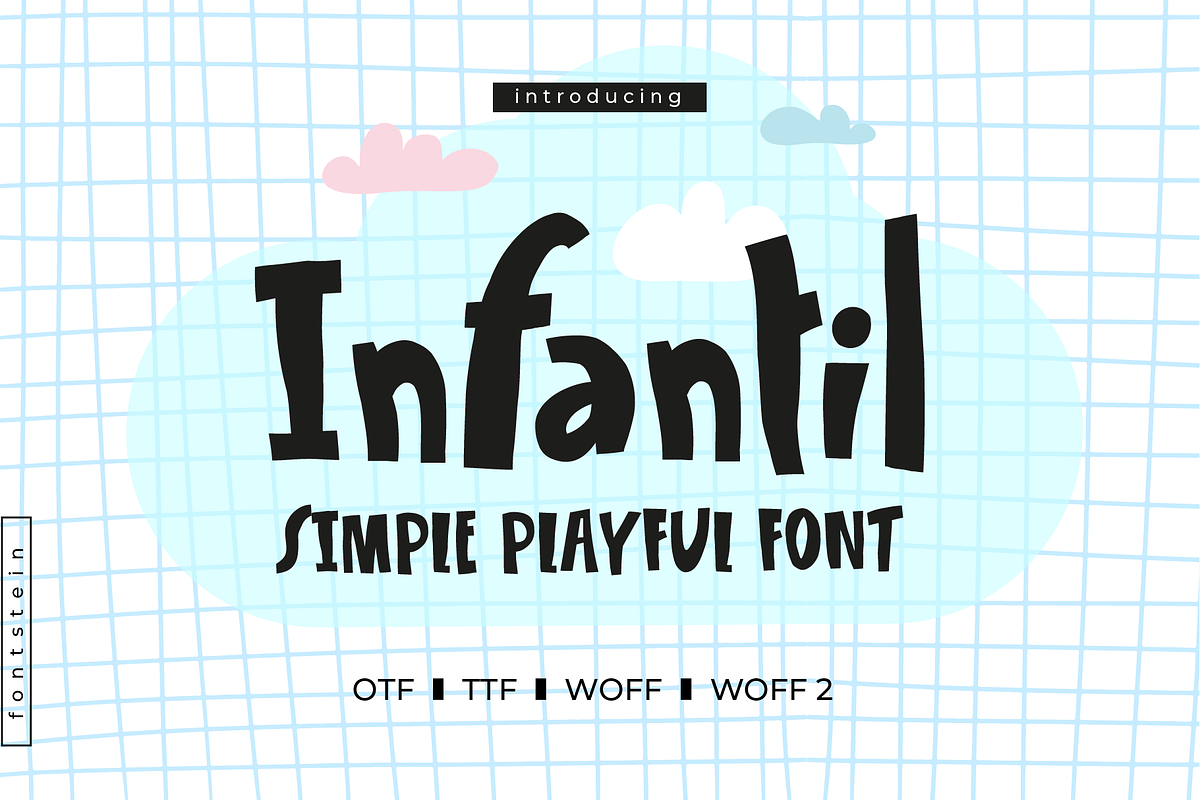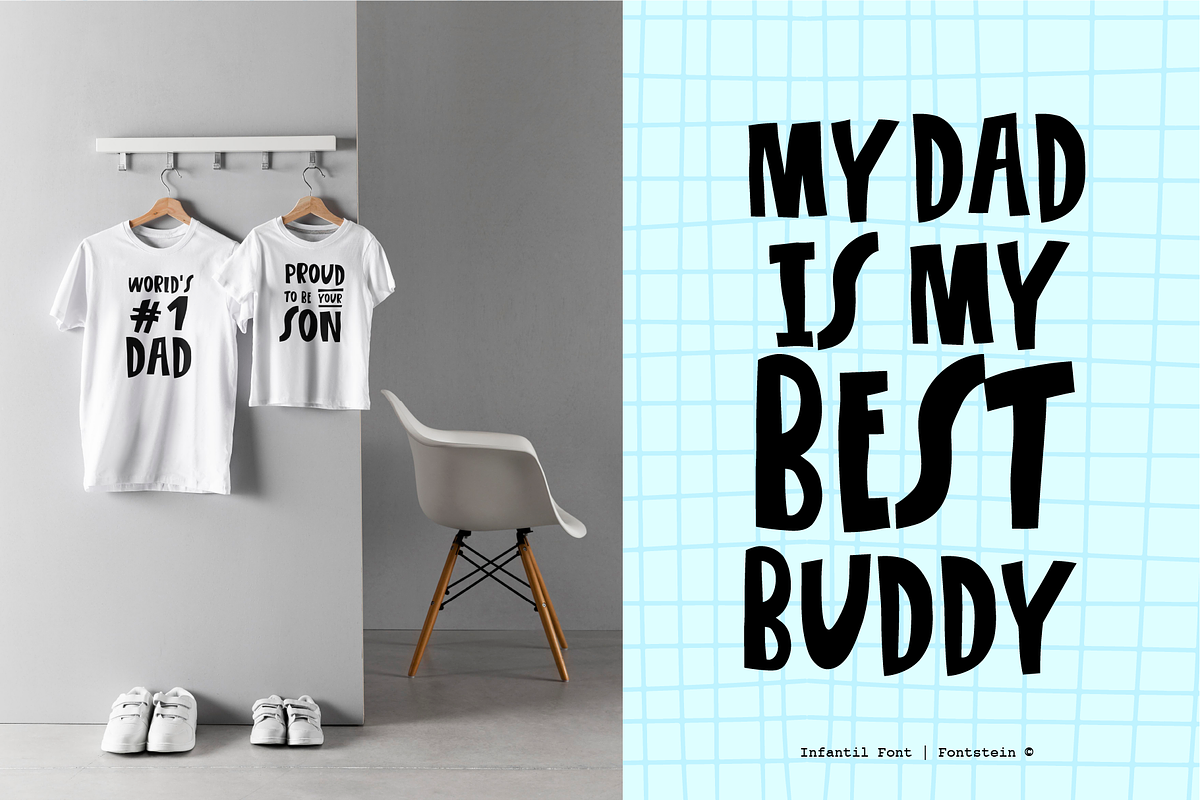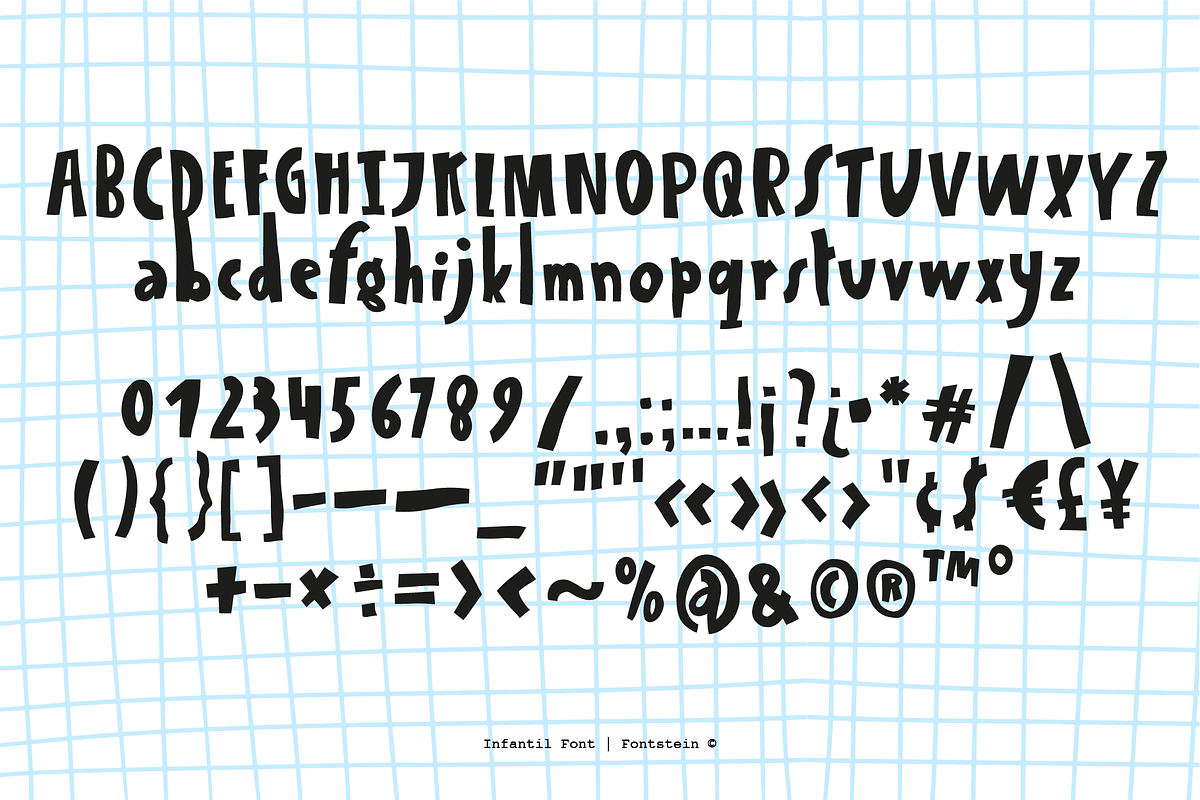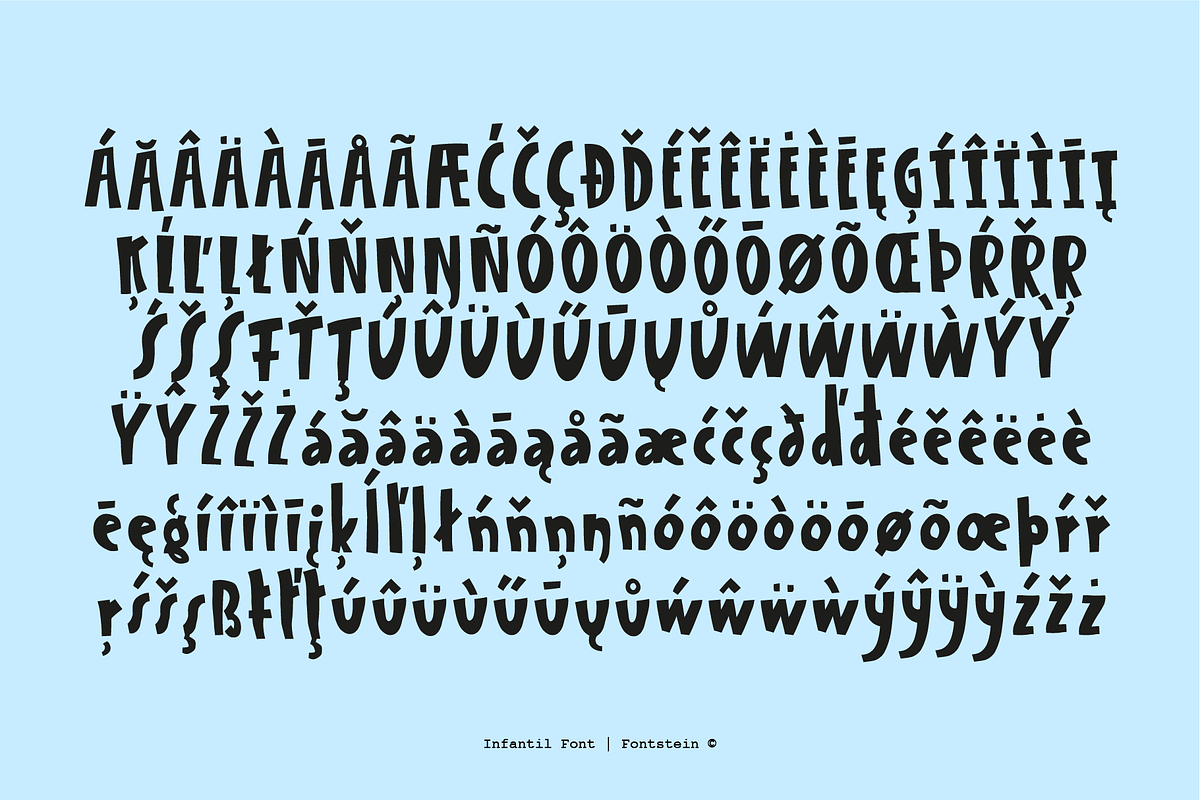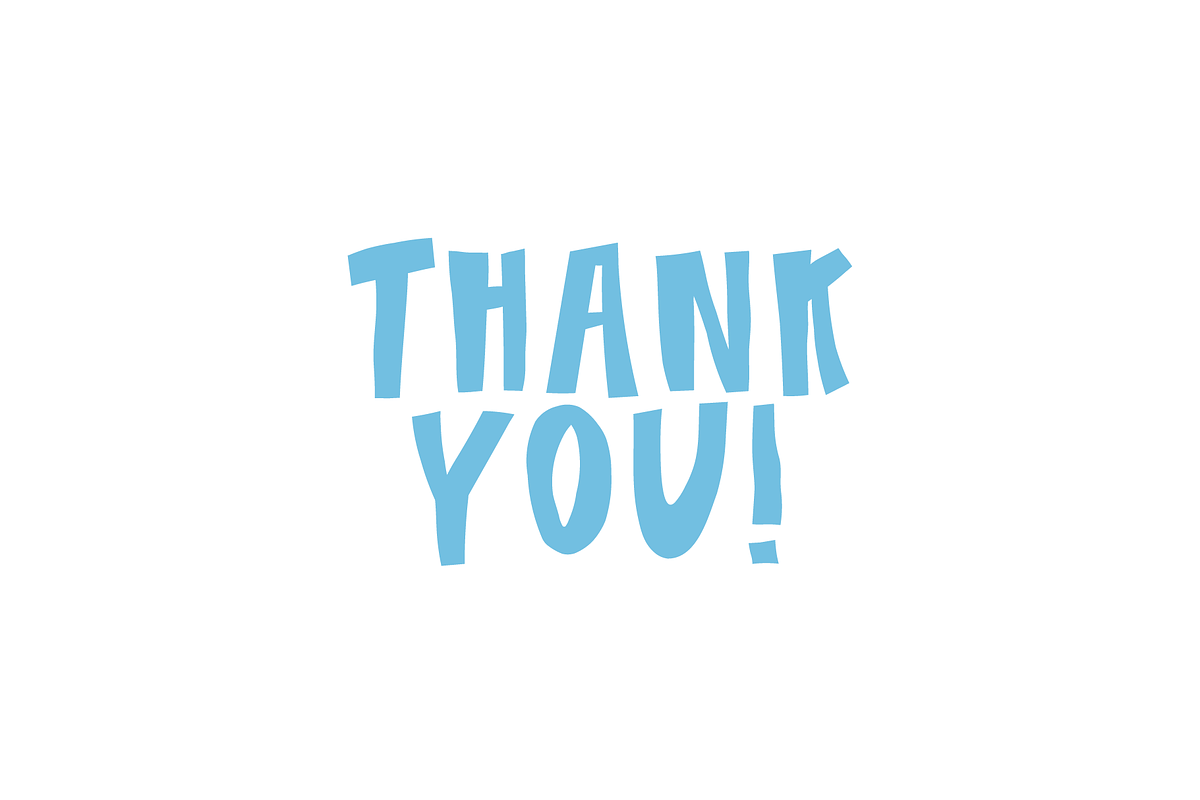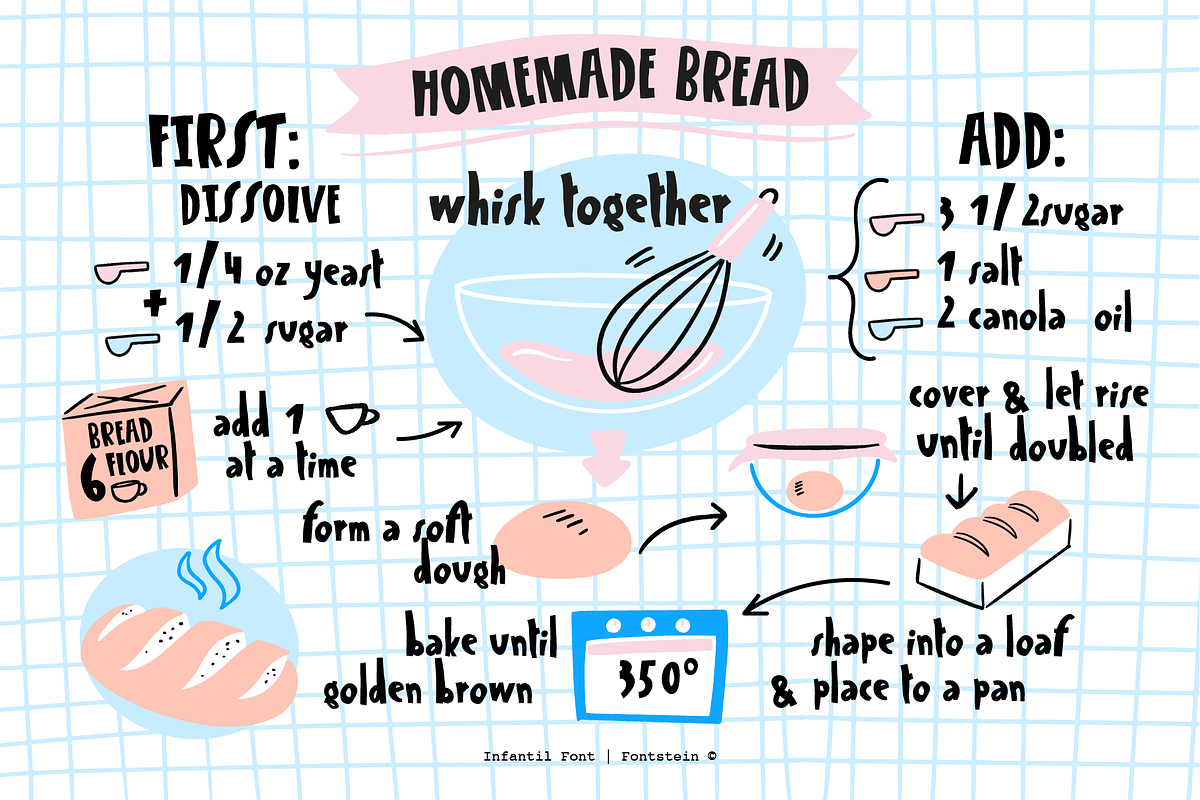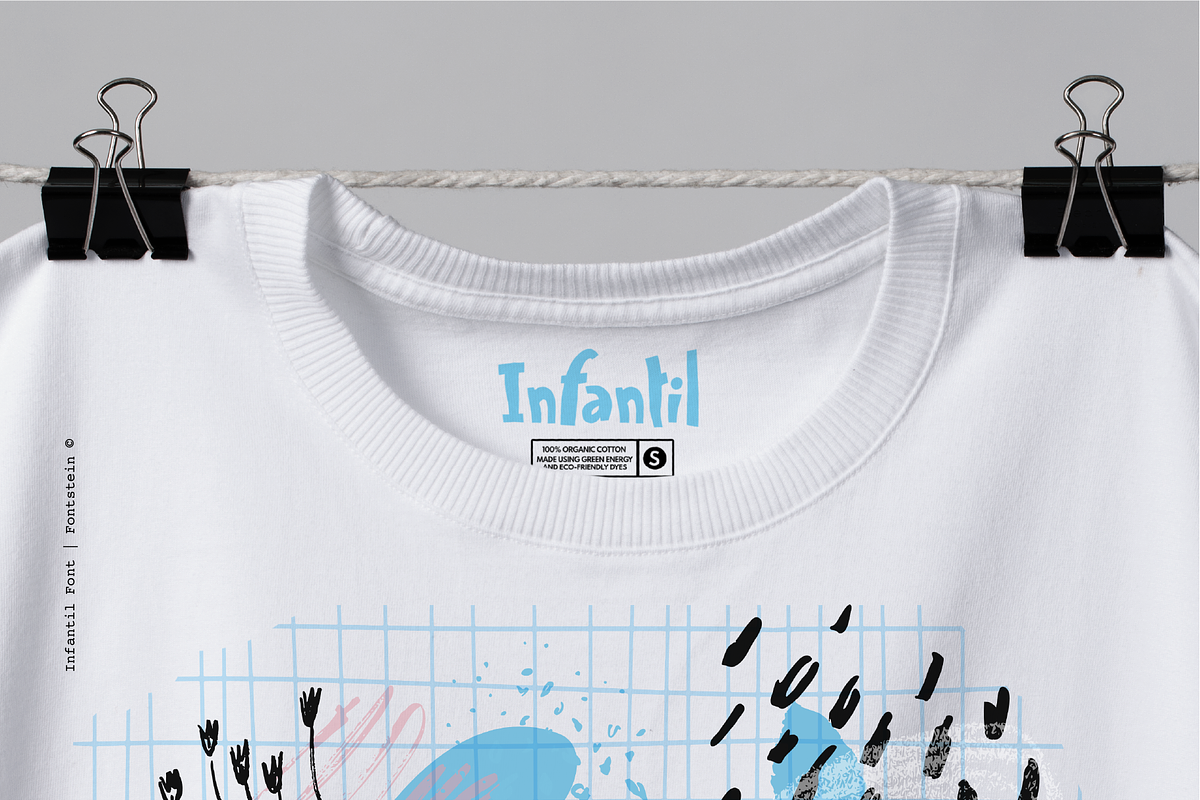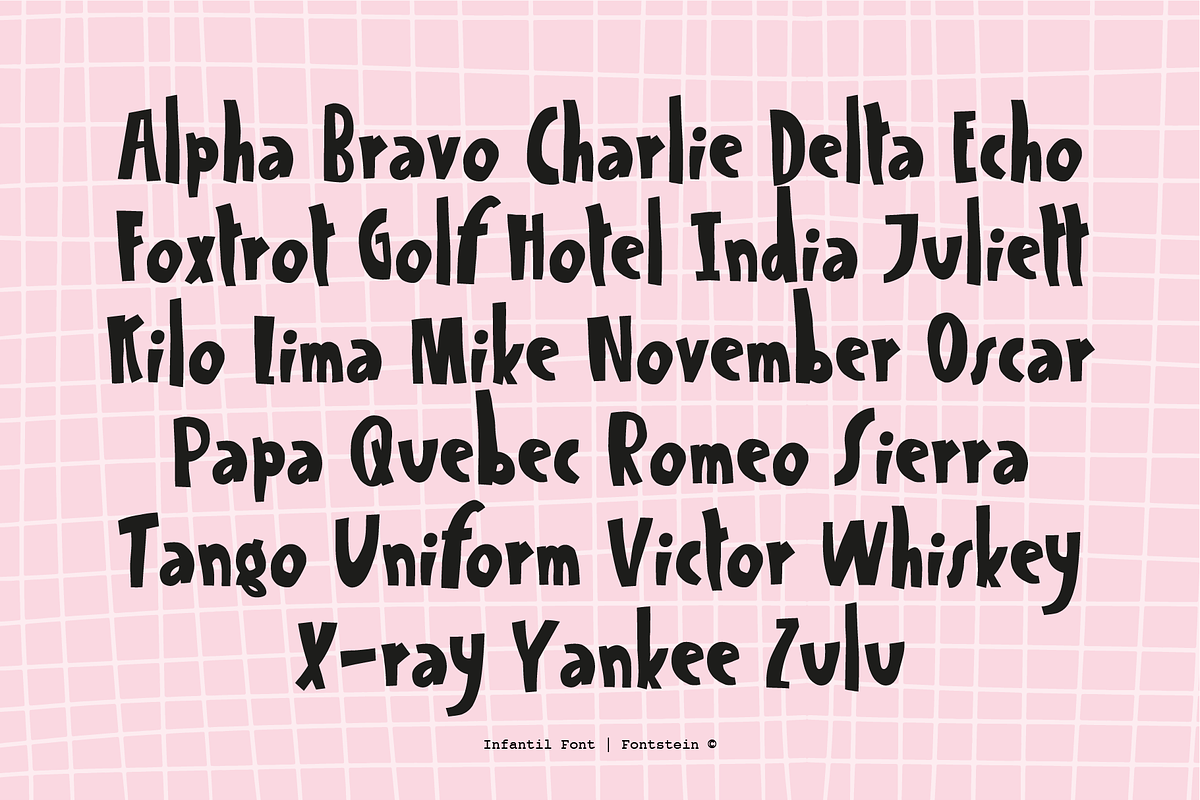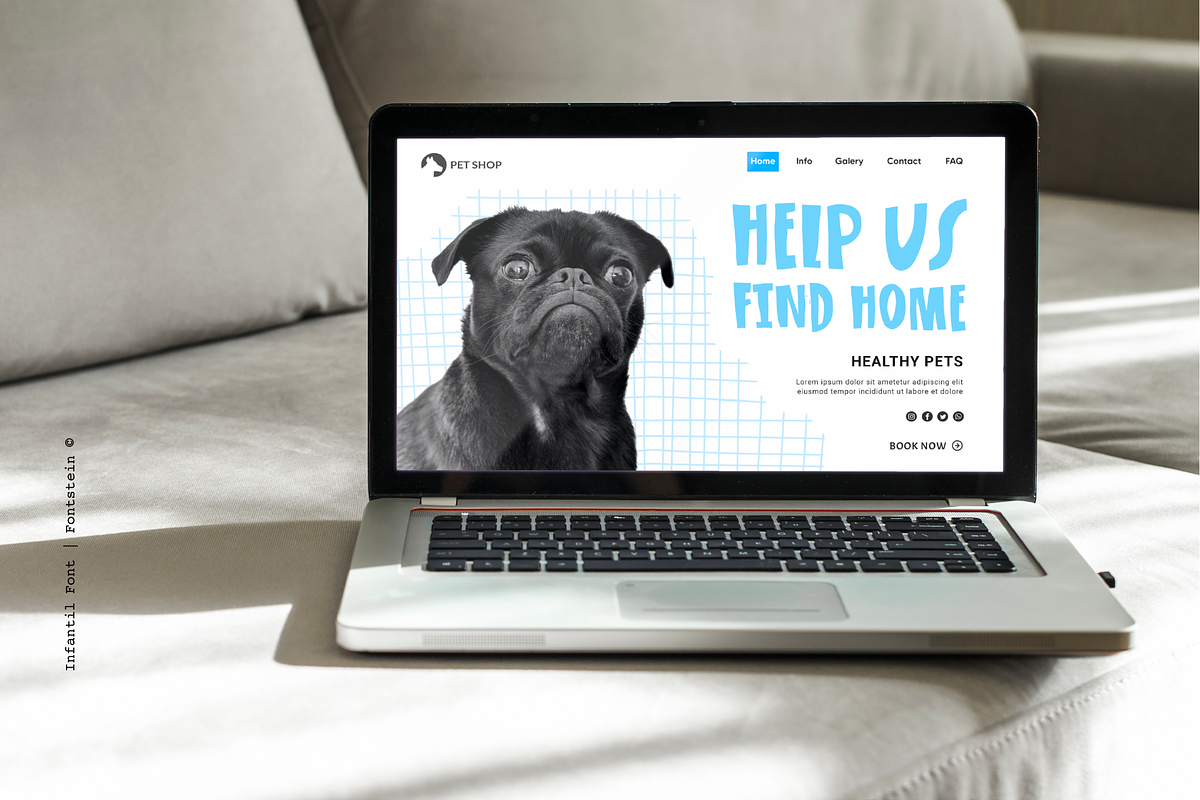
INFANTIL | Cute hand drawn font
INFANTIL is a multipurpose display font with a fun, irregular, and quirky look and feel. It works best for kid's brand logos, quotes, social media, invitations, greeting cards, and all kinds of fun designs.
INFANTIL has massive language support - it includes basic latin characters, western european, central european, southeastern european. If you want to test your language, please - type something in the test box below preview :)